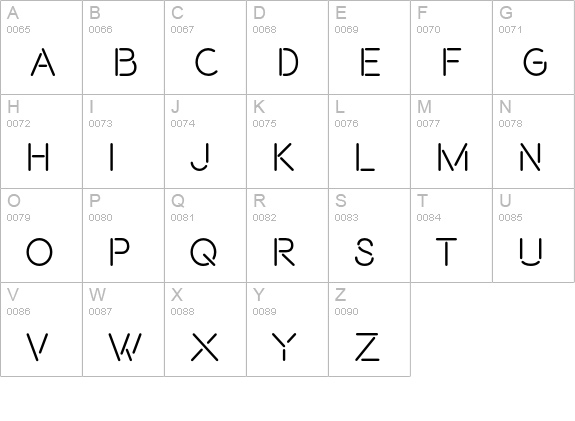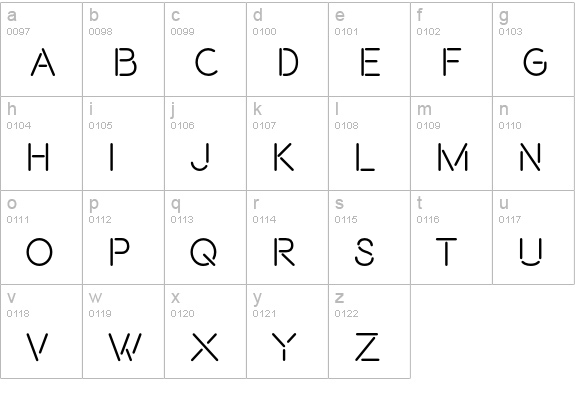
Beon Medium Font Details
Beon Medium is a balanced, medium-weight variant in the Beon typeface family \xE2\x80\x94 well suited to sub-headlines, navigation, and balanced editorial work.
Beon Medium font is a versatile typeface that combines elegance with readability. Its clean lines and balanced proportions make it suitable for a wide range of design projects, from branding to editorial layouts. The medium weight of the font strikes the perfect balance between boldness and subtlety, allowing it to stand out without overpowering the overall design. What sets Beon Medium font apart is its accessibility. It is freely available to download at FontsMarket.com, making it an excellent option for designers on a budget or those looking to experiment with different typefaces. By offering this font for free, the creators of Beon Medium have made it accessible to a wider audience, democratizing the design process and encouraging creativity. The versatility of Beon Medium font is evident in its ability to adapt to various design contexts. Whether used for headlines, body text, or captions, the font maintains its legibility and visual impact. The carefully crafted letterforms exude a sense of professionalism and sophistication, making it suitable for both digital and print projects. Beon Medium font's extensive character set includes uppercase and lowercase letters, numerals, punctuation marks, and various special characters. This comprehensive range ensures that designers have all the tools they need to create visually appealing and cohesive designs. In conclusion, Beon Medium font is a high-quality typeface that combines elegance with accessibility. Its free availability for download at FontsMarket.com makes it an attractive choice for designers seeking a versatile and budget-friendly font. With its balanced proportions and clean lines, Beon Medium font is sure to elevate any design project, from branding to editorial layouts.